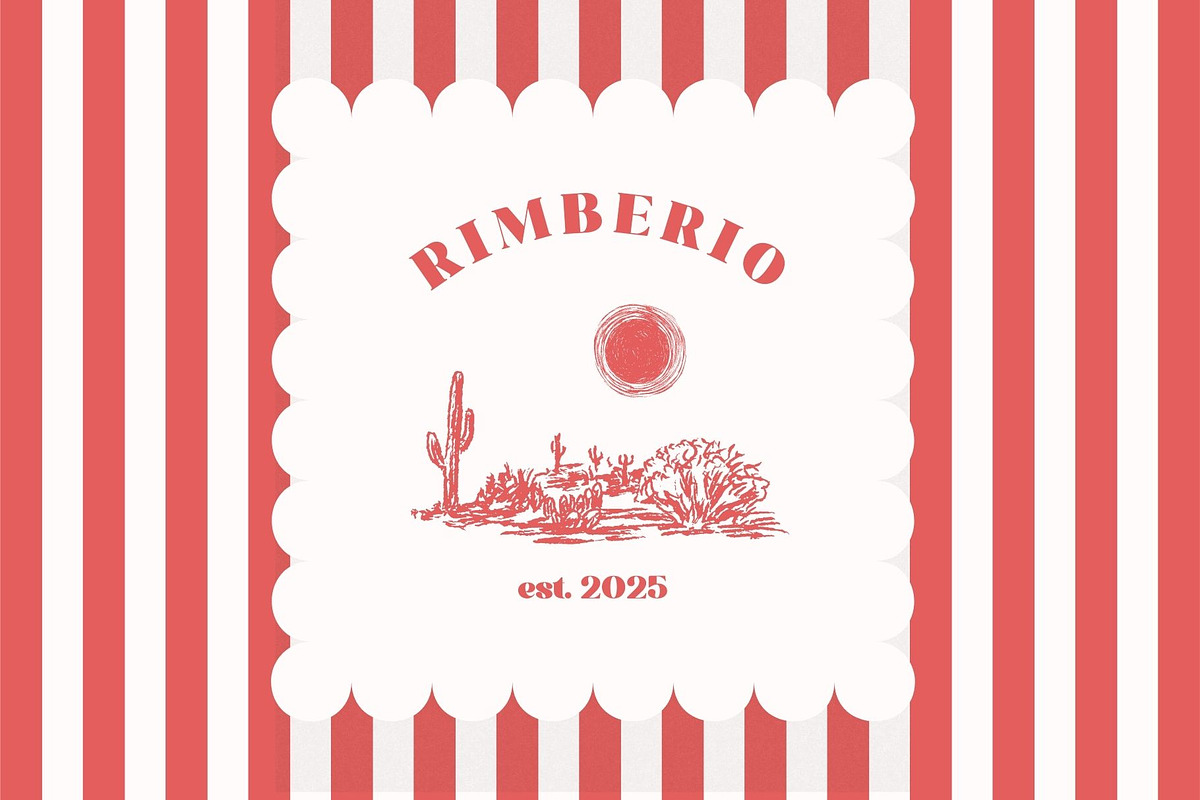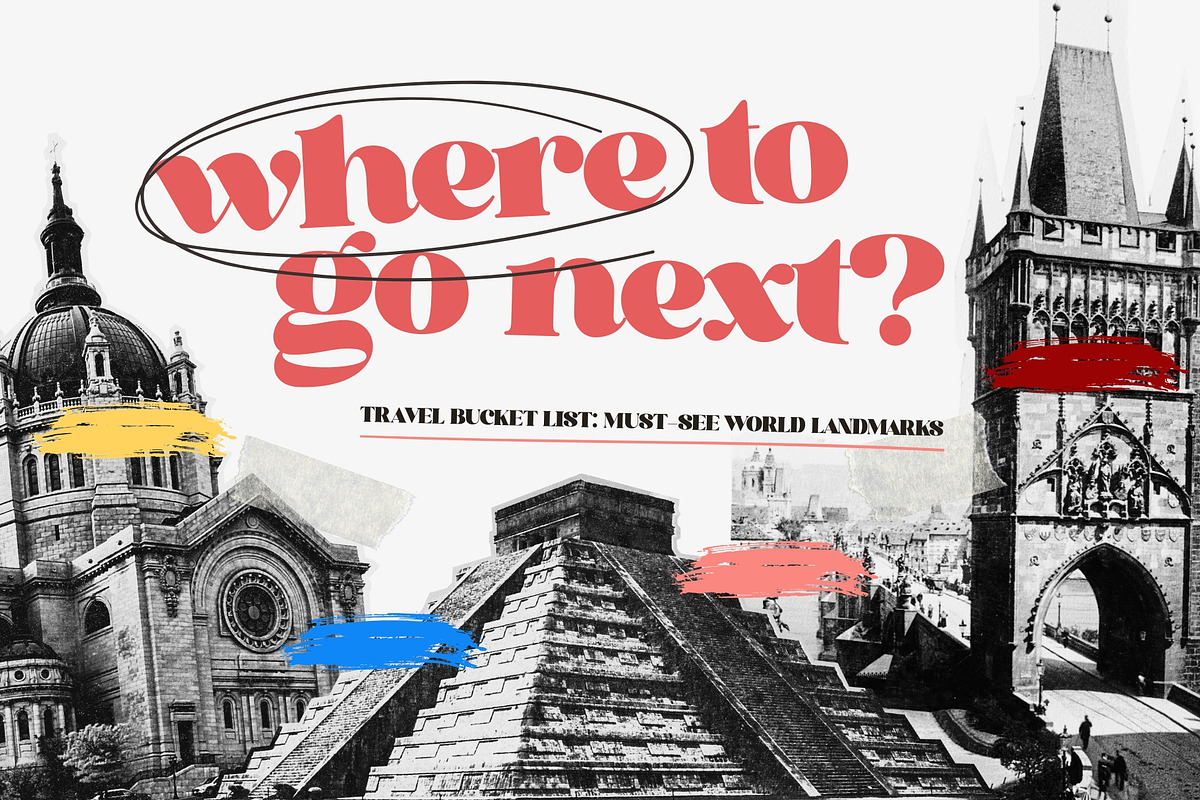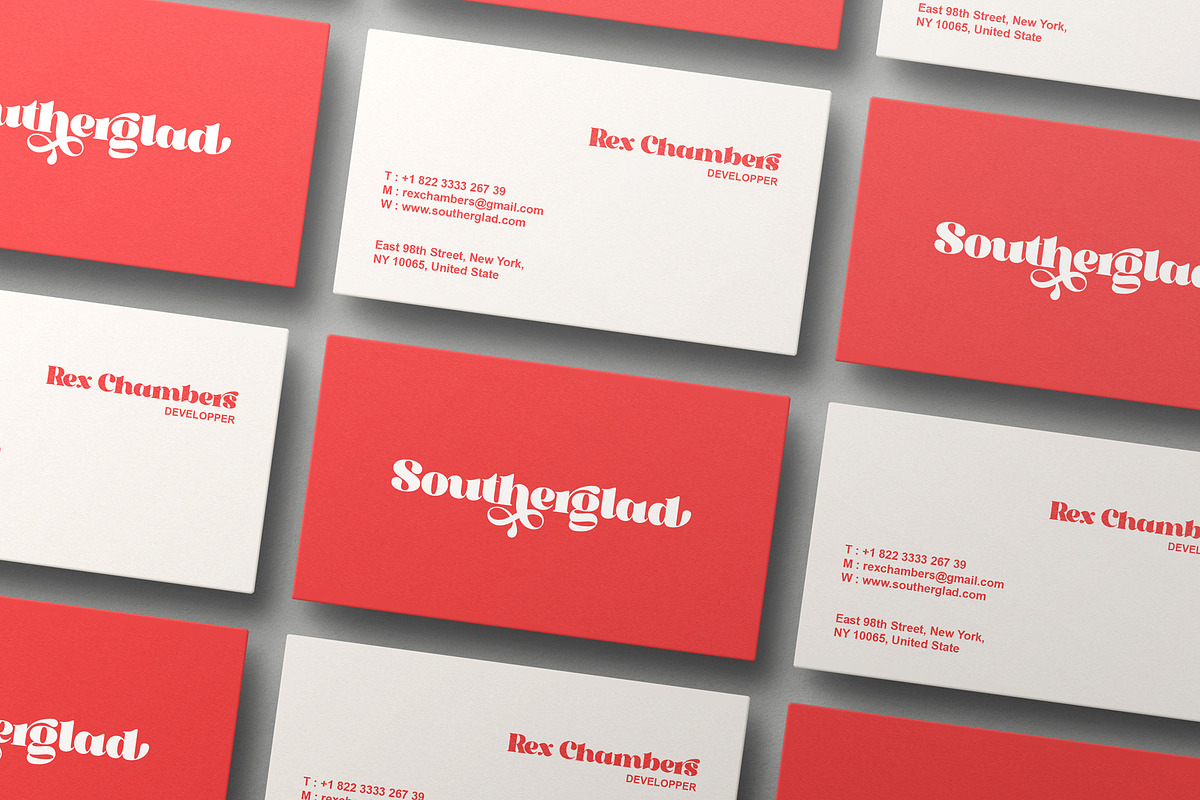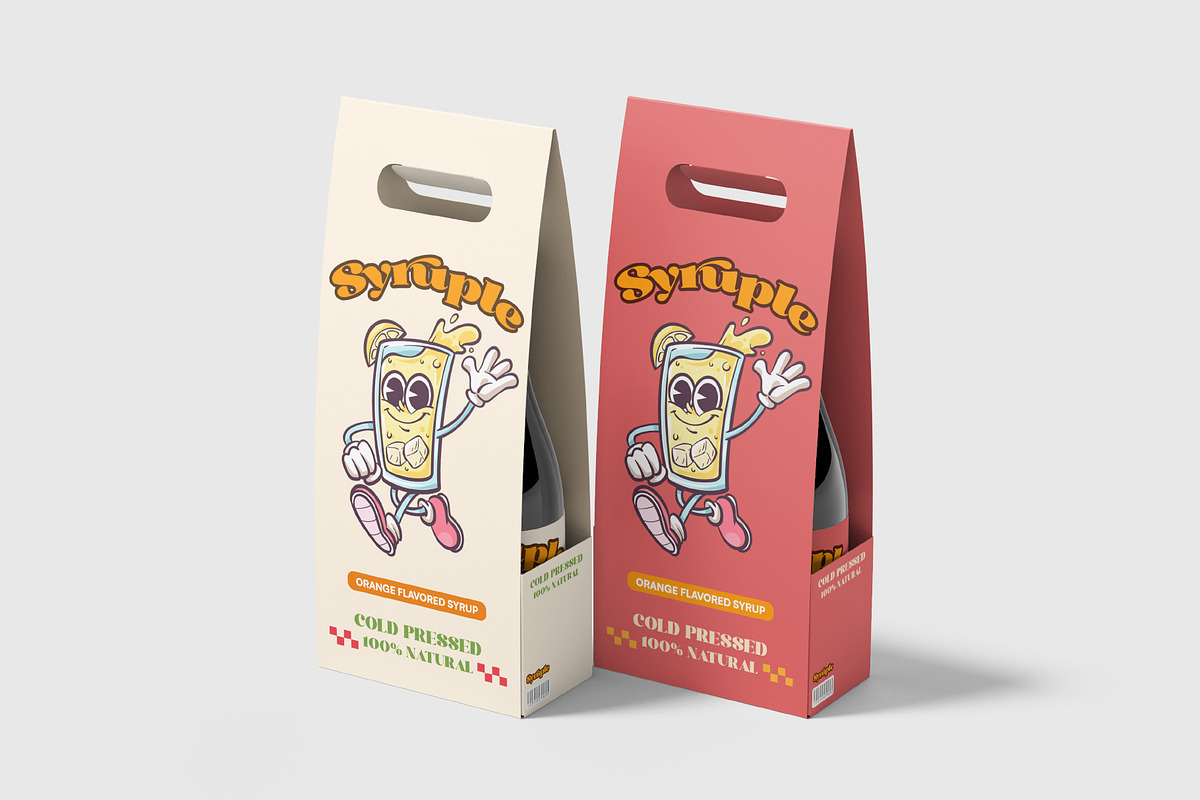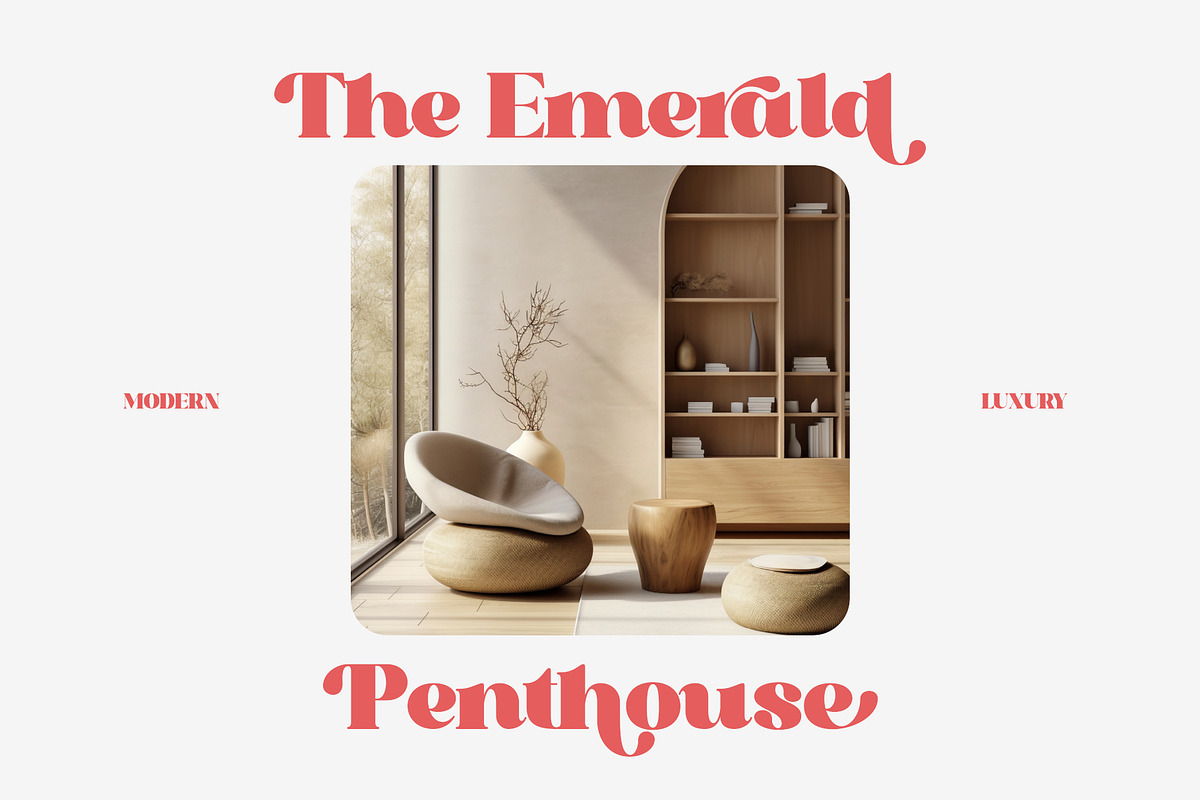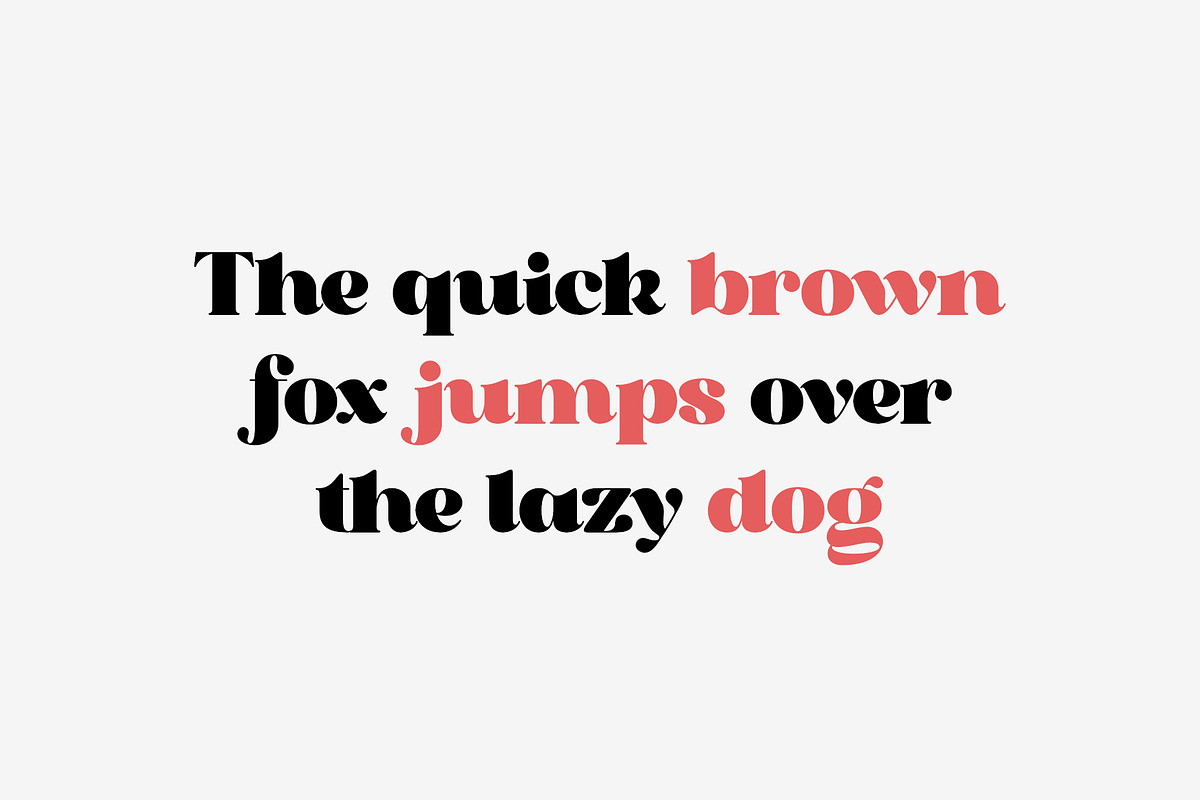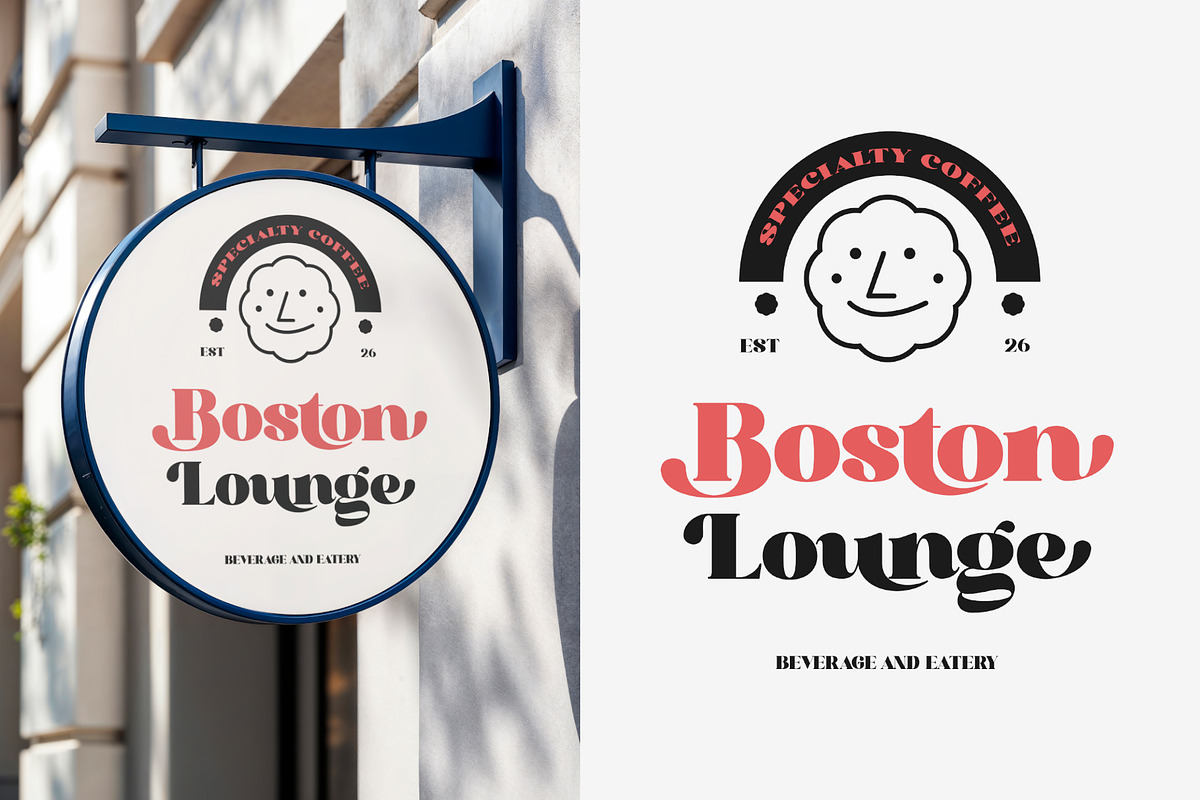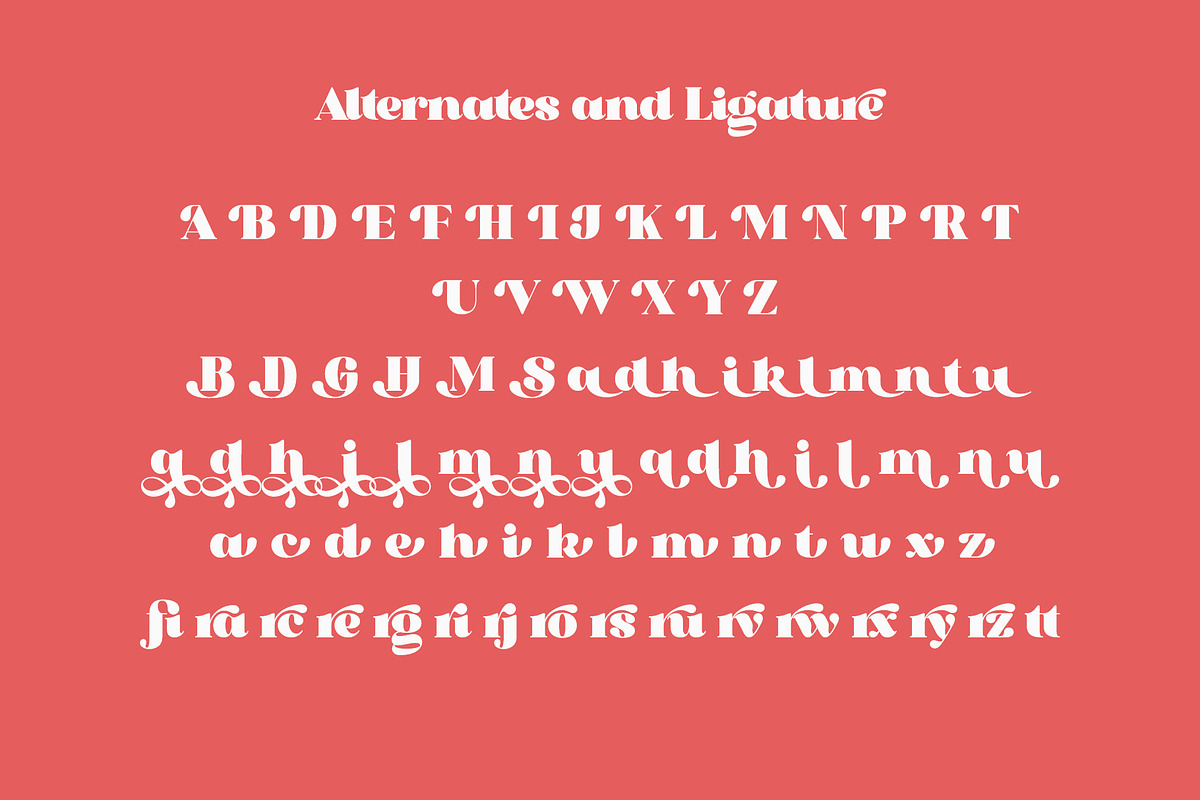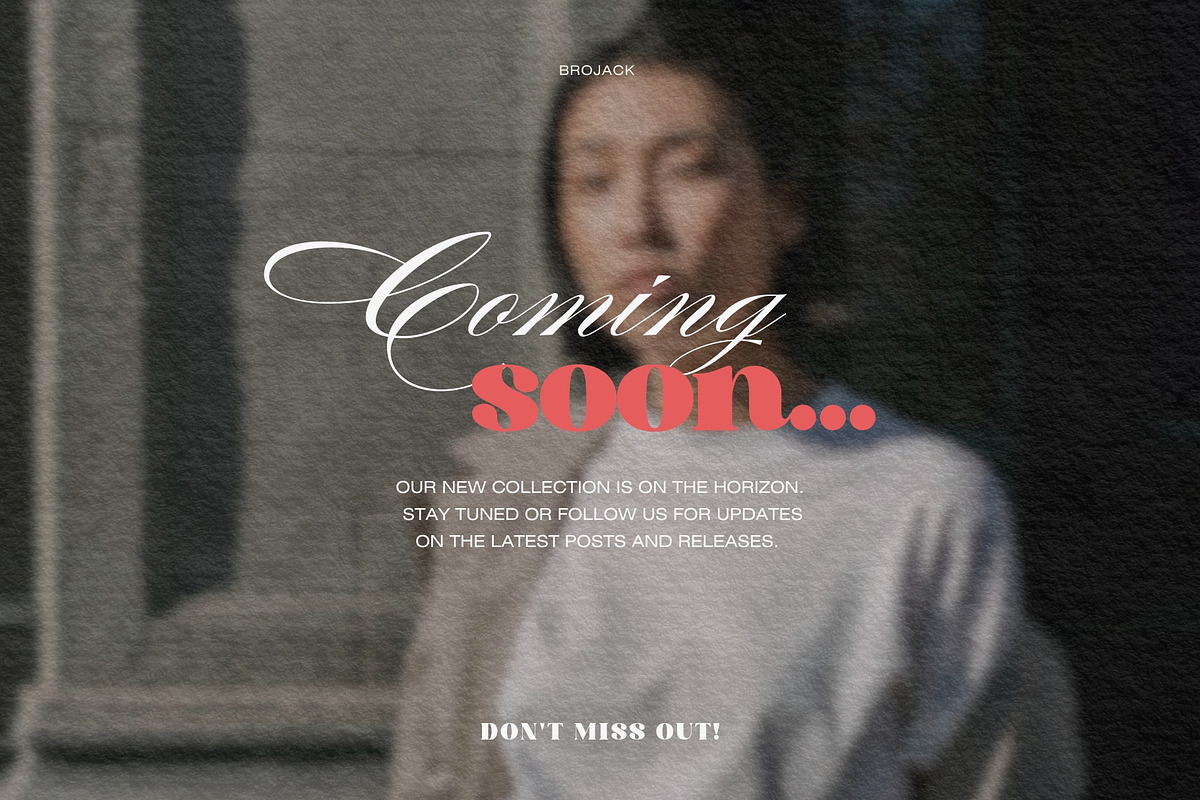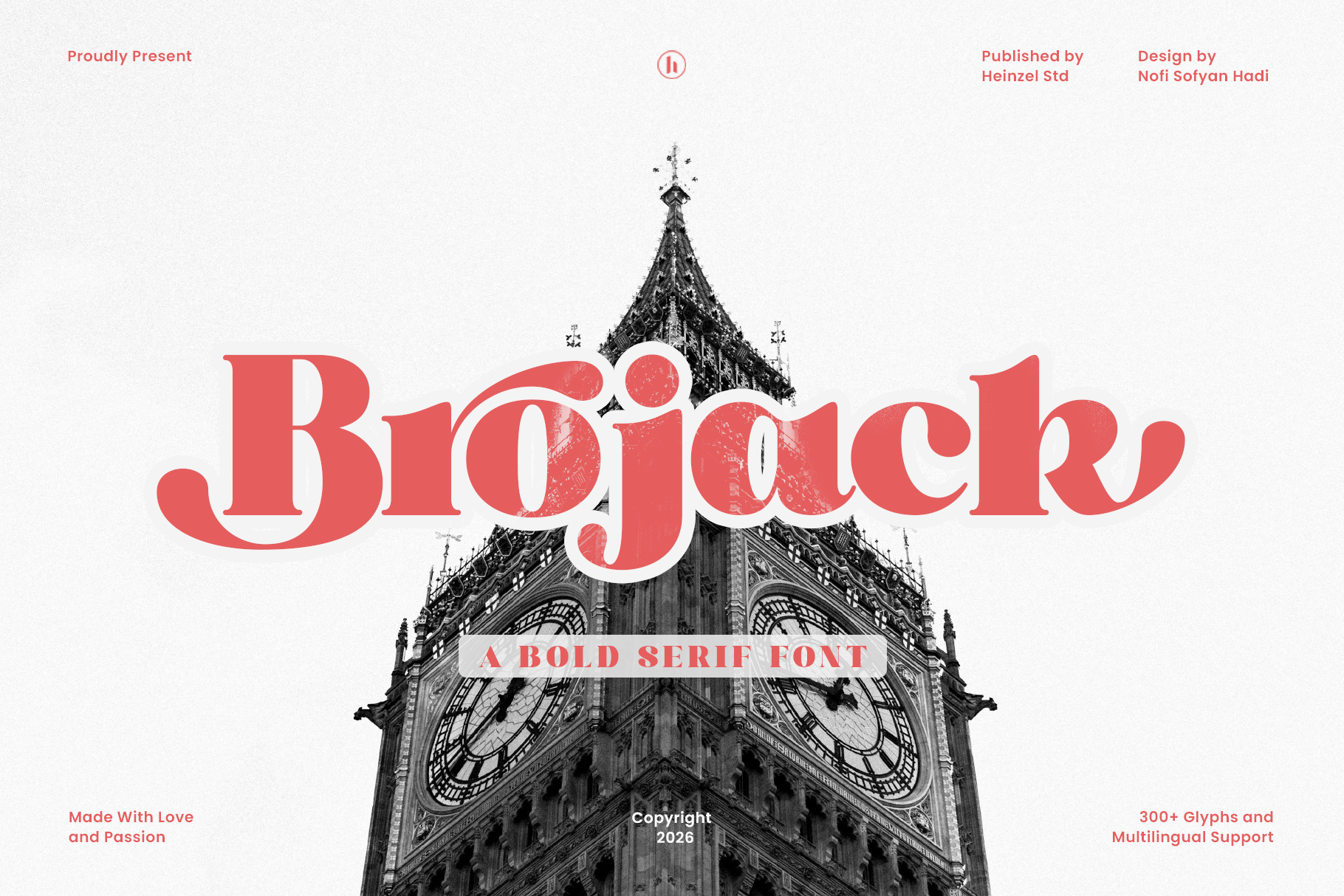
Brojack Bold Retro Serif Font
Brojack is a bold retro serif font inspired by classic vintage typography with a modern twist. Its strong curves, thick strokes, and elegant serifs make it perfect for branding, logos, posters, packaging, headlines, and editorial designs. Brojack delivers a nostalgic yet stylish look, ideal for retro-themed projects, fashion brands, creative studios, and display typography. With multilingual support and extensive glyphs, this font offers versatility and professional-quality typography for both digital and print use.
Brojack brings a confident retro vibe with bold serif details and smooth vintage curves. Designed to stand out at large sizes, it works beautifully for impactful headlines while remaining readable and balanced in branding and editorial layouts. Its classic charm paired with modern usability makes Brojack a strong choice for designers who want nostalgic character with a fresh, professional finish.